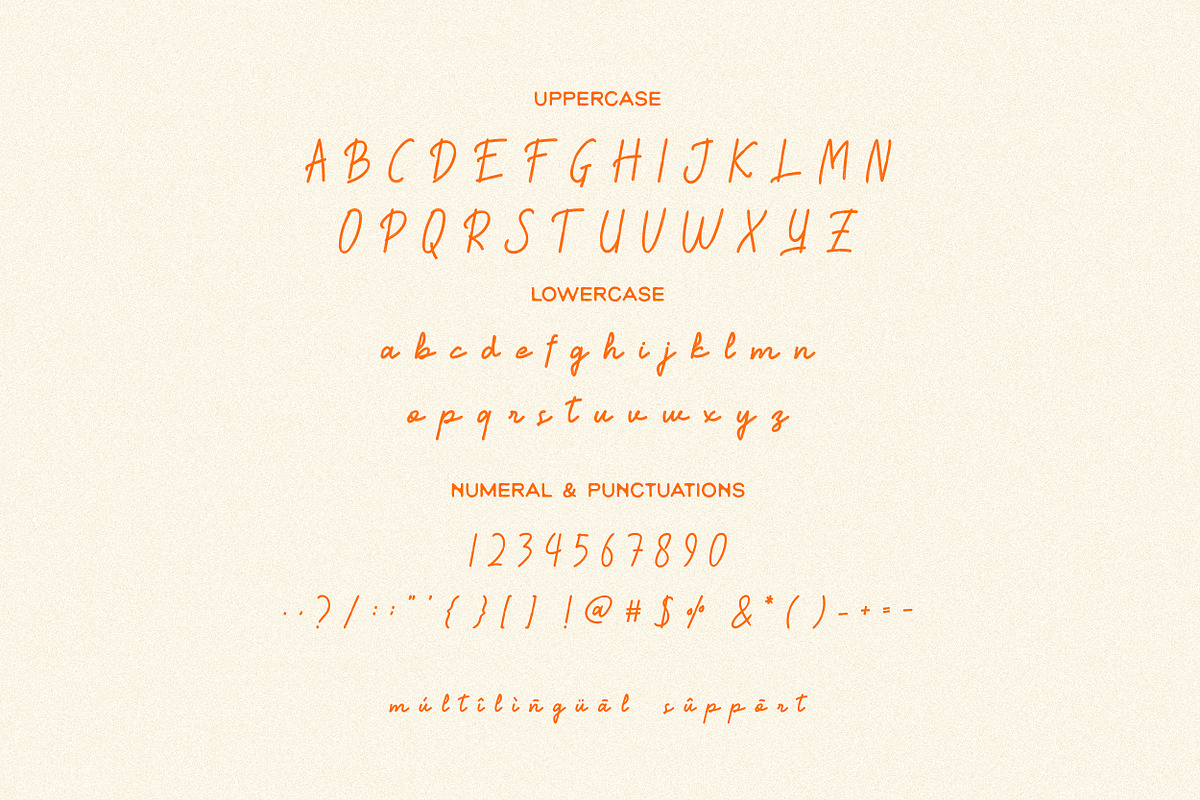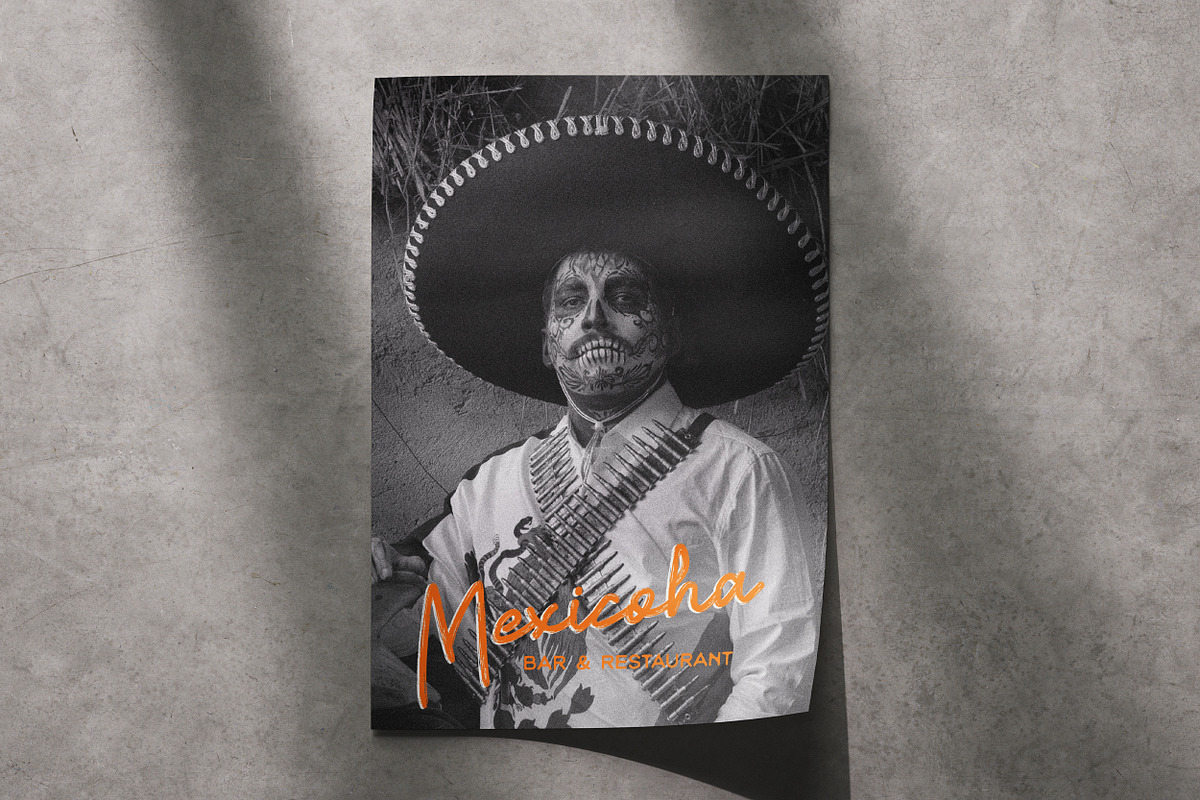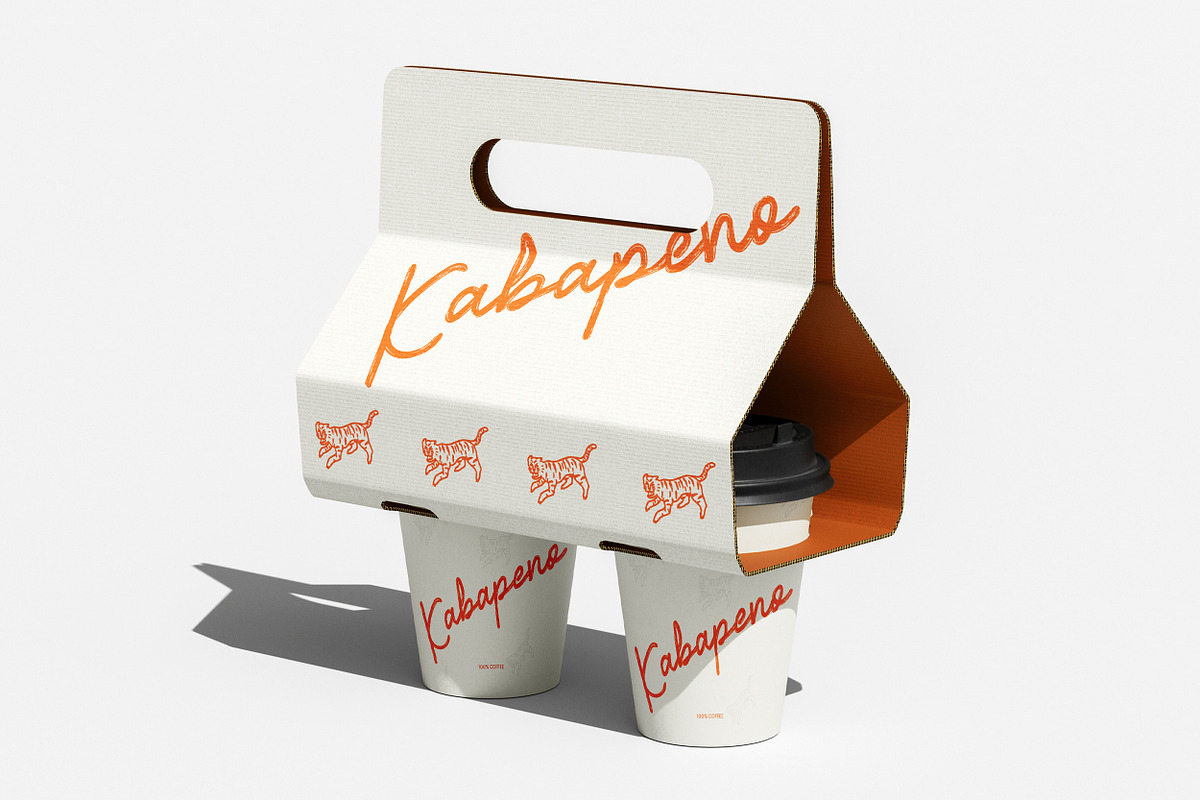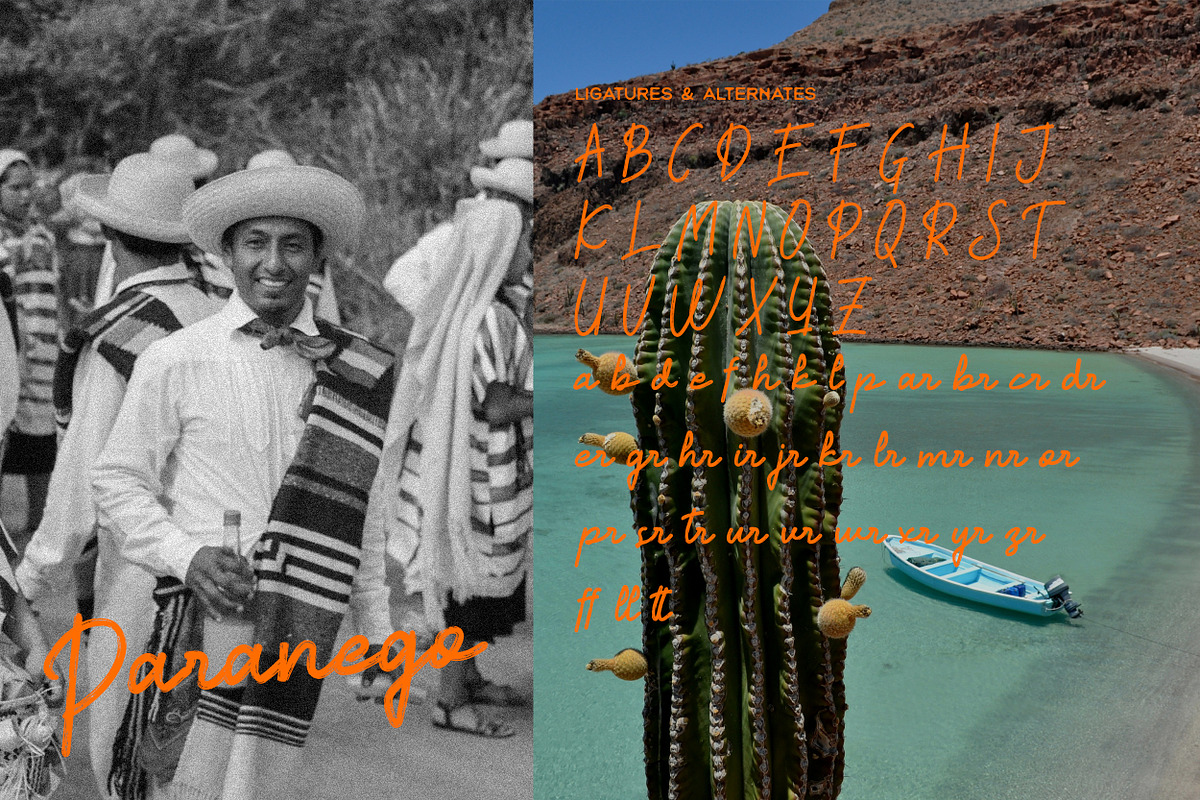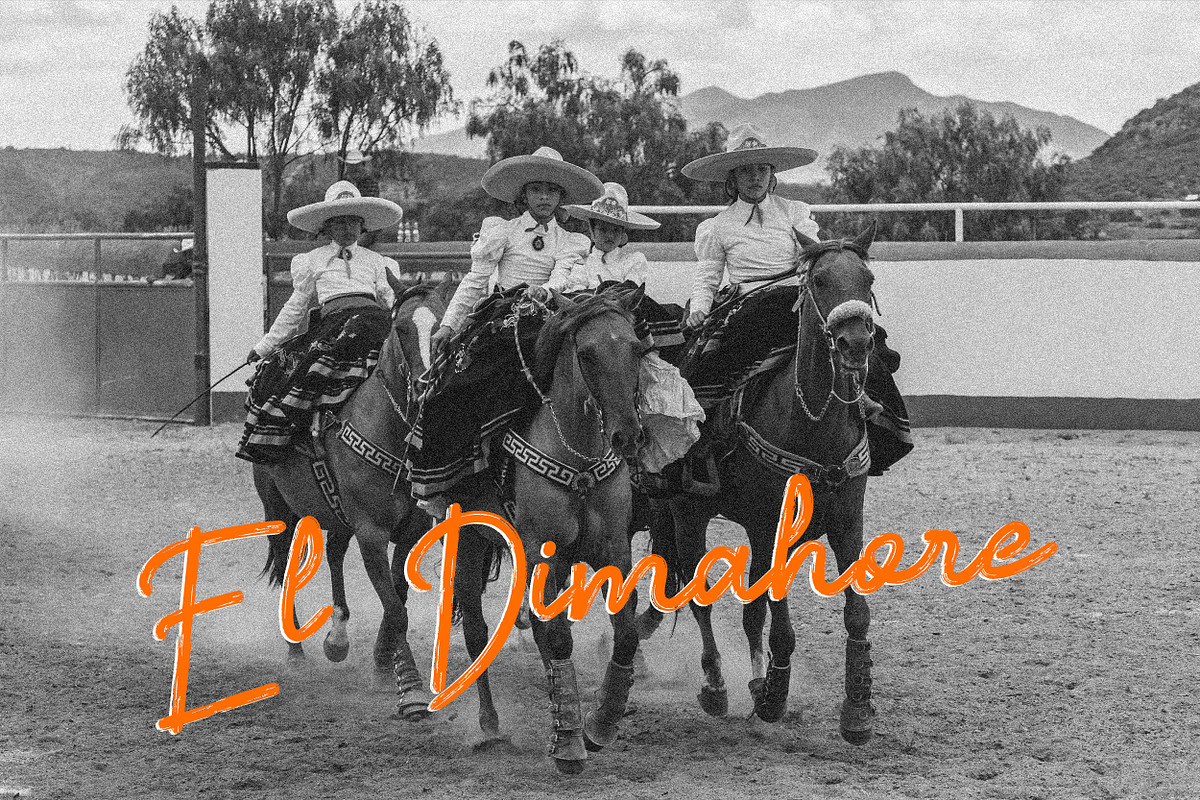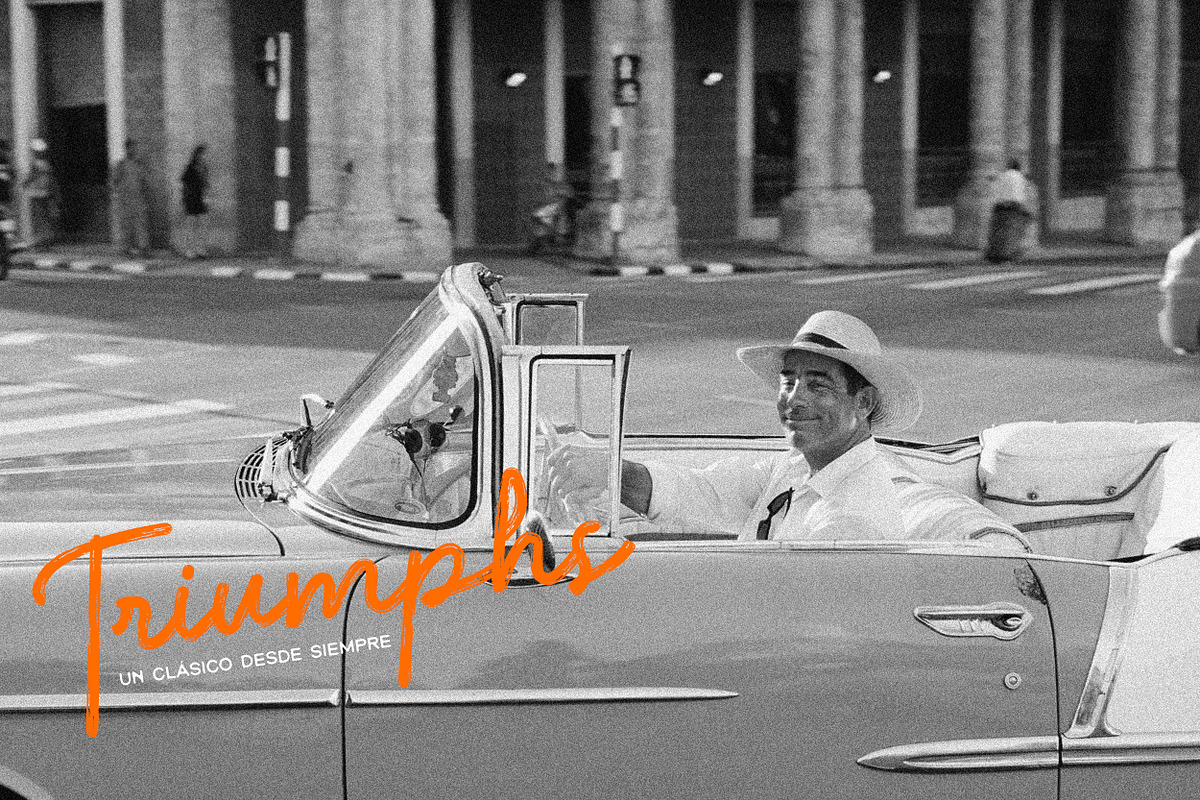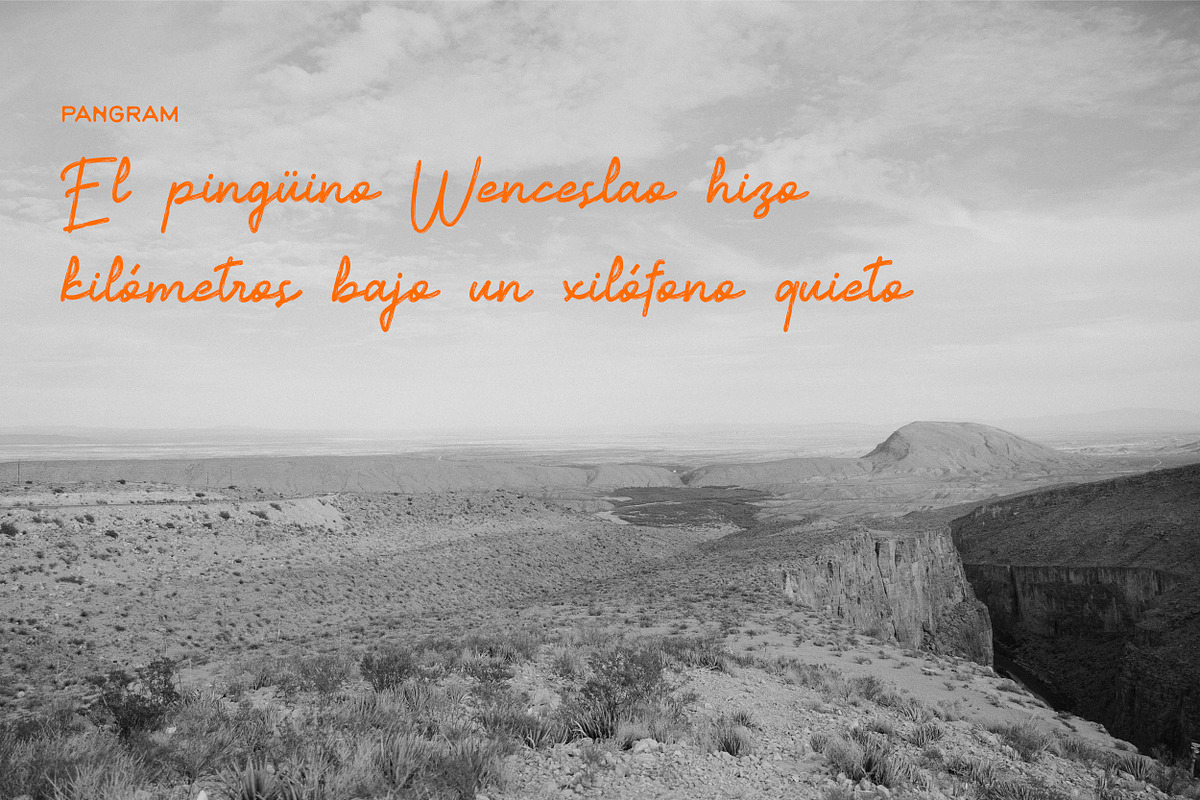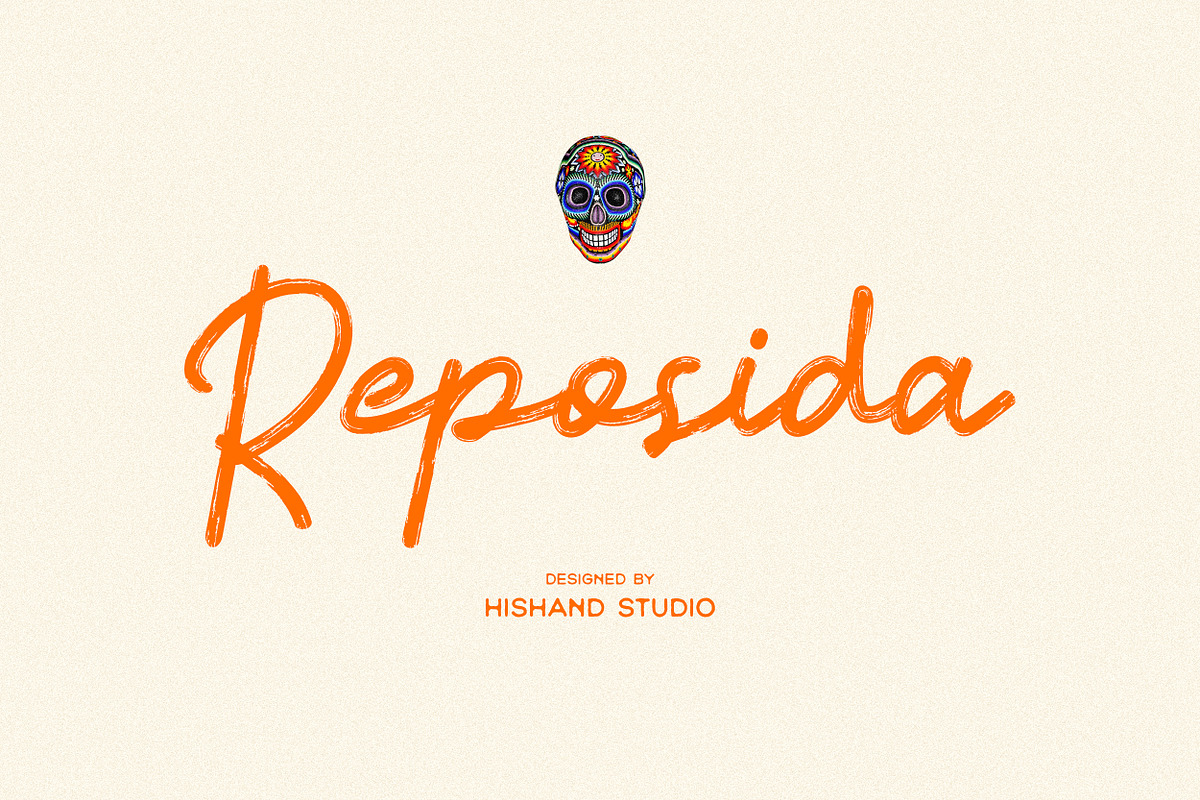
Reposida Brush Font
Reposida is a brush script built for warmth and character. Every stroke carries the loose, confident energy of real brush lettering, with slight pressure variations and organic curves that feel handmade rather than templated. The letterforms lean casual but stay legible, striking a balance between raw expression and clean usability.
Designed with versatility in mind, Reposida works well across labels, packaging, logos, and editorial layouts. It carries a natural, artisanal feel that suits spirits branding, craft goods, and lifestyle products looking for a touch of authenticity and personality. The font includes alternates and ligatures, giving designers room to add flair where needed while keeping the base style approachable.
Reposida bridges the gap between polished branding and handcrafted charm, making it a flexible choice for projects that want to feel genuine, warm, and a little rebellious without losing readability or structure. Complete with :
uppercase
lowercase
ligatures
alternates
multilingual support